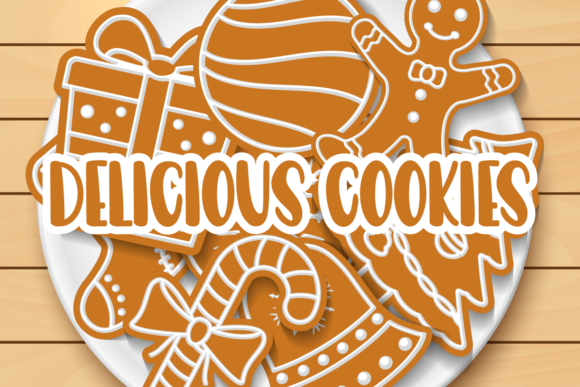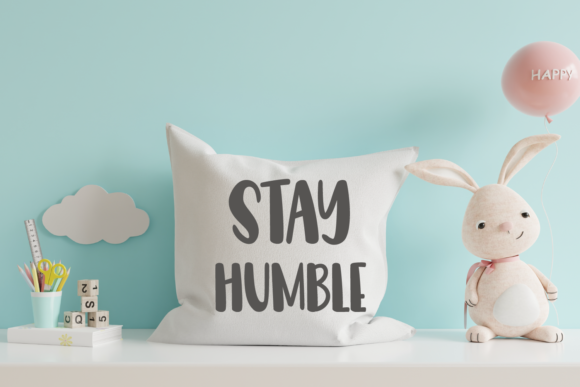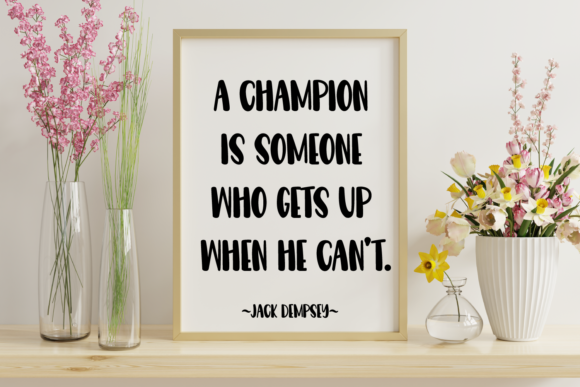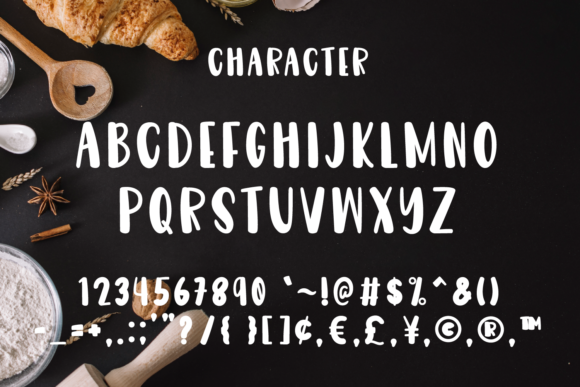
Introduction to Handmade Cookies Font
Handmade Cookies is a cute display font.
It is defined by smooth curves and is perfect for fashion branding or editorial designs Add it confidently to your projects, and you will love the results.
Key Features of Handmade Cookies Font
Why Choose Handmade Cookies Font?